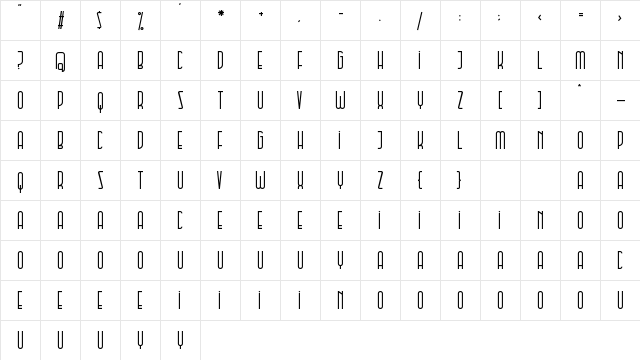
Kalliant Regular
| Designer | Ana Natalia |
Design Context for Kalliant Typeface
Kalliant offers clean, dependable letterforms without strong stylistic allegiance, making it a practical choice for designers who need flexibility.